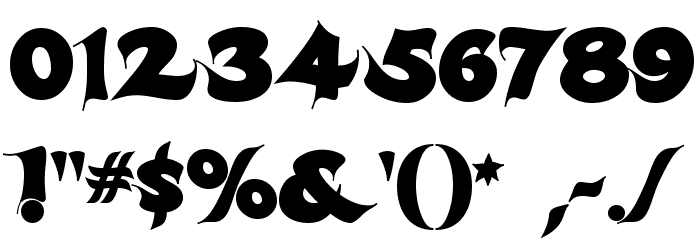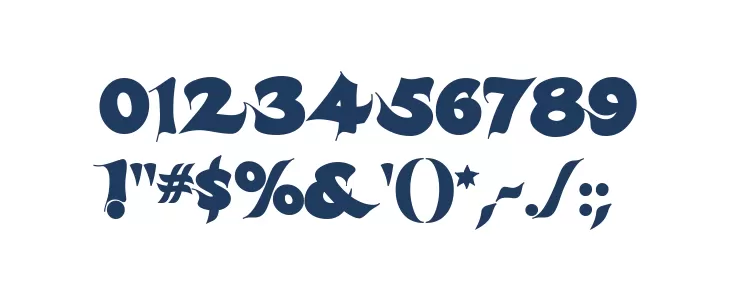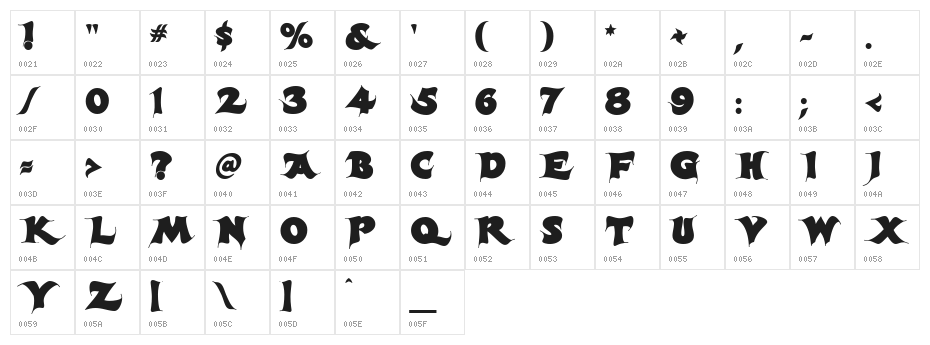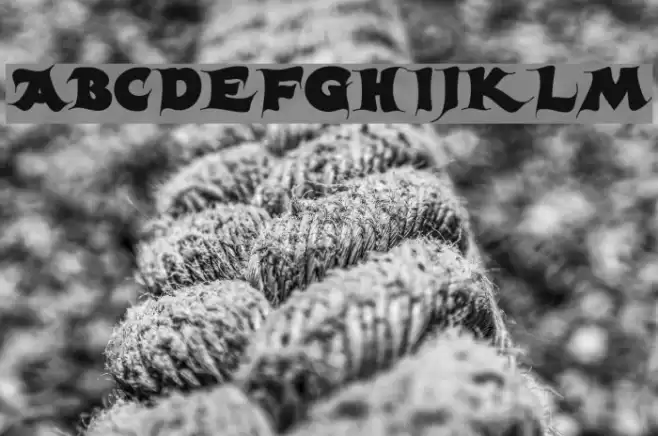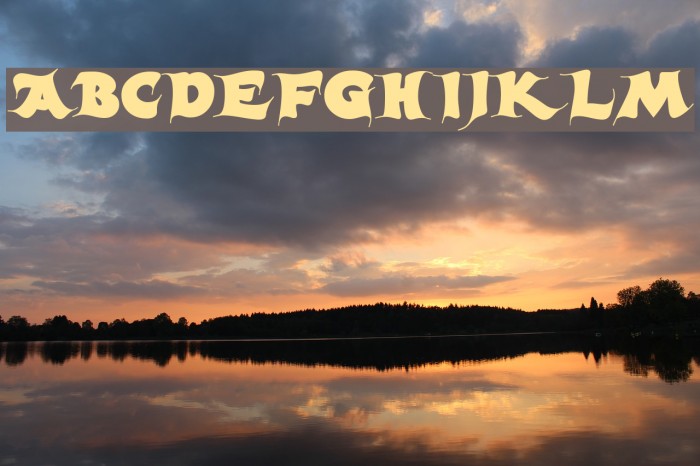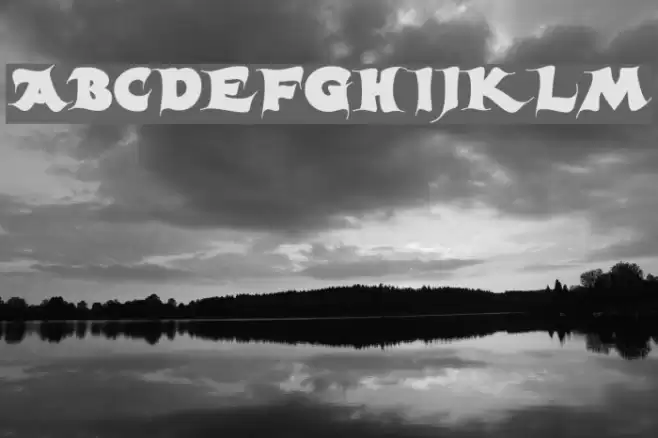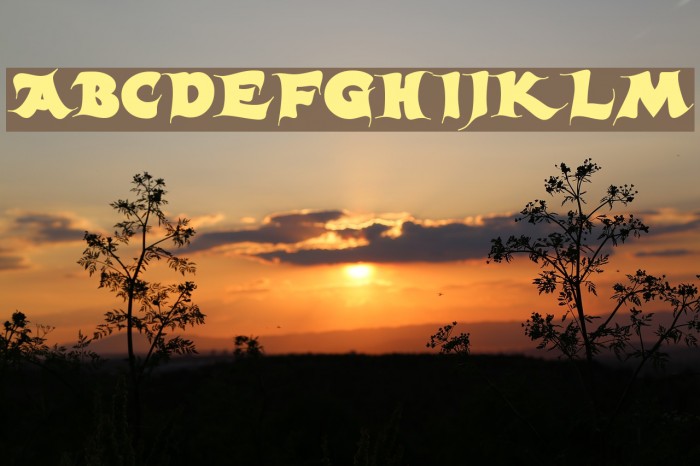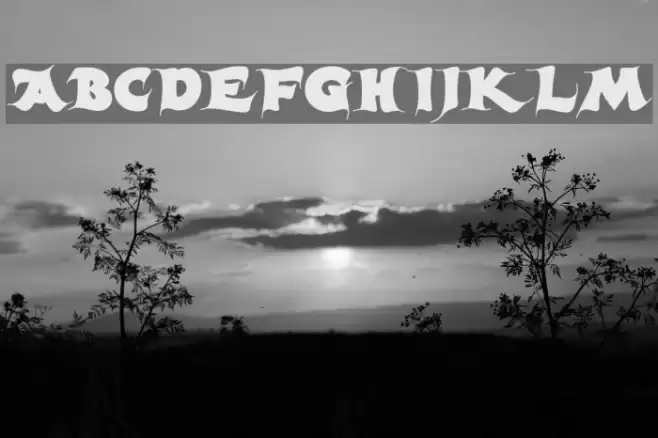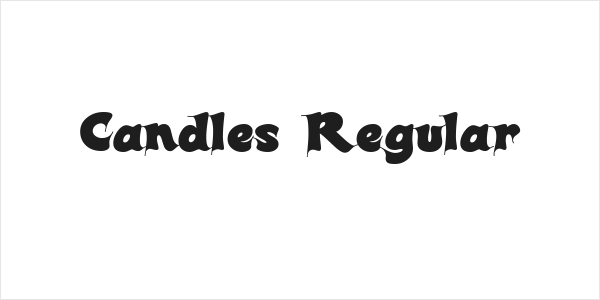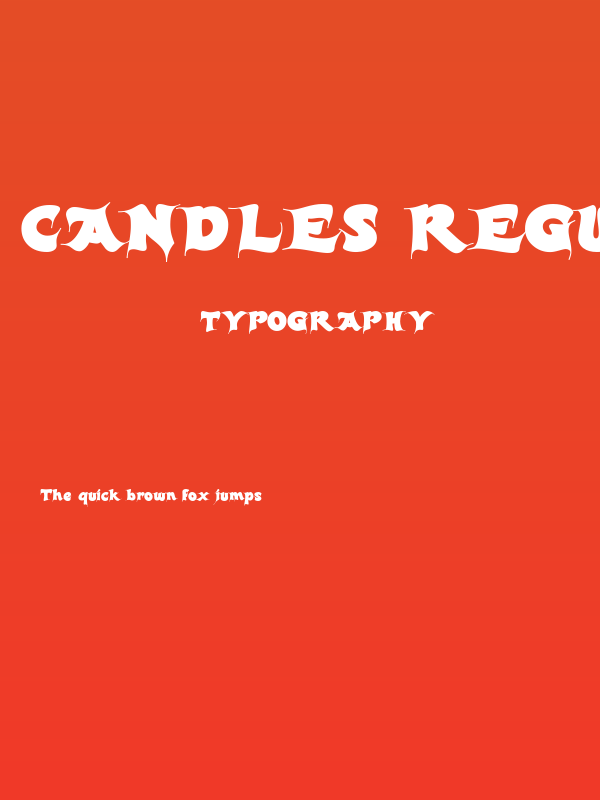
Candles Regular Font
Candles Regular Description
This font features a bold, dramatic style with sharp, angular edges and a slightly gothic flair. The characters are thick and heavy, with a unique, almost flame-like appearance that gives them a dynamic and energetic feel. The uppercase letters are particularly striking, with exaggerated serifs and a strong presence. The lowercase letters maintain the same boldness, ensuring consistency across the typeface. Numbers and special characters are equally bold, making them stand out effectively. This font is designed to capture attention and convey a sense of power and intensity.
Proposed ProjectsIdeal for projects requiring a strong visual impact, such as posters, album covers, or branding for edgy or alternative products.